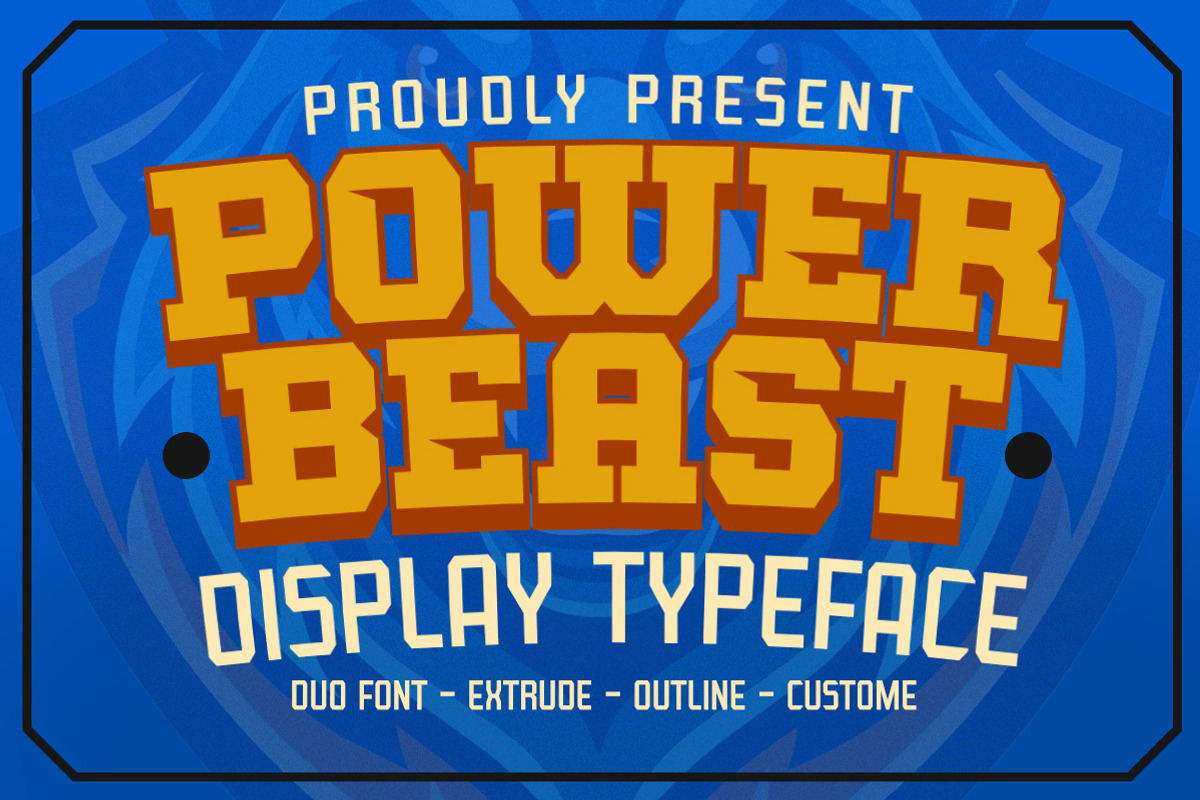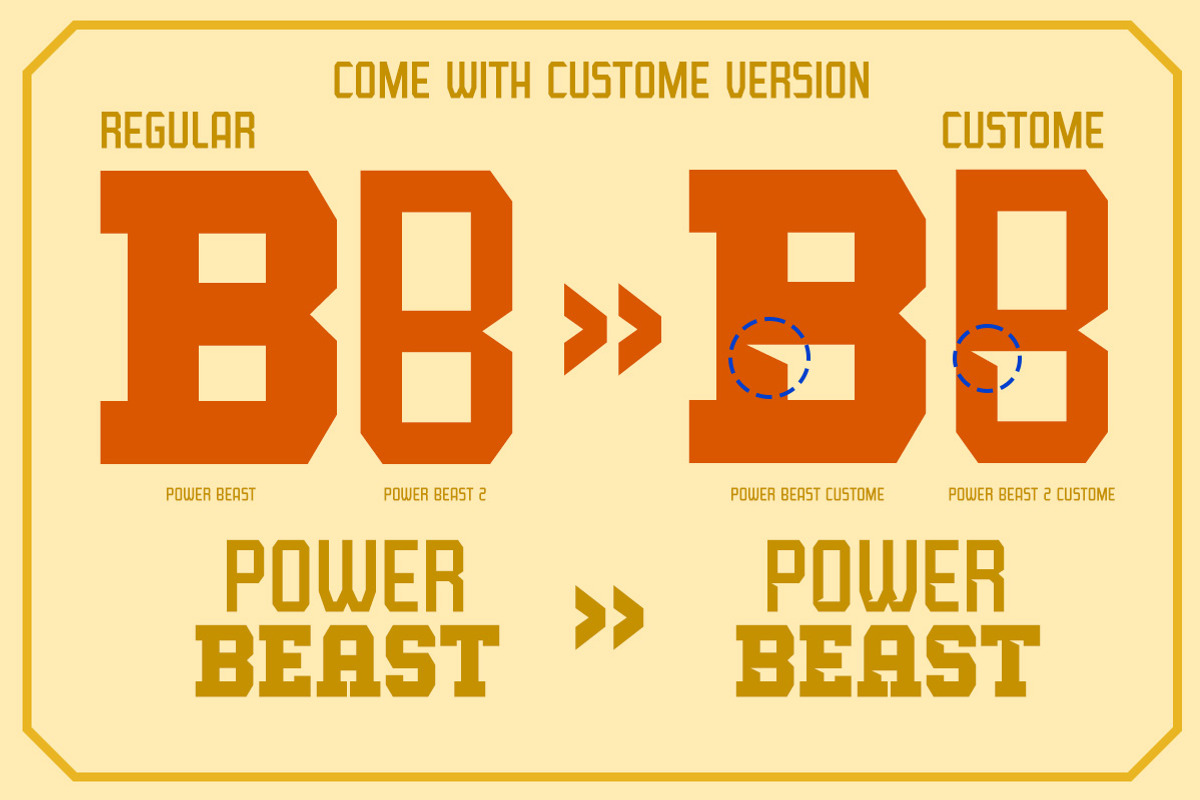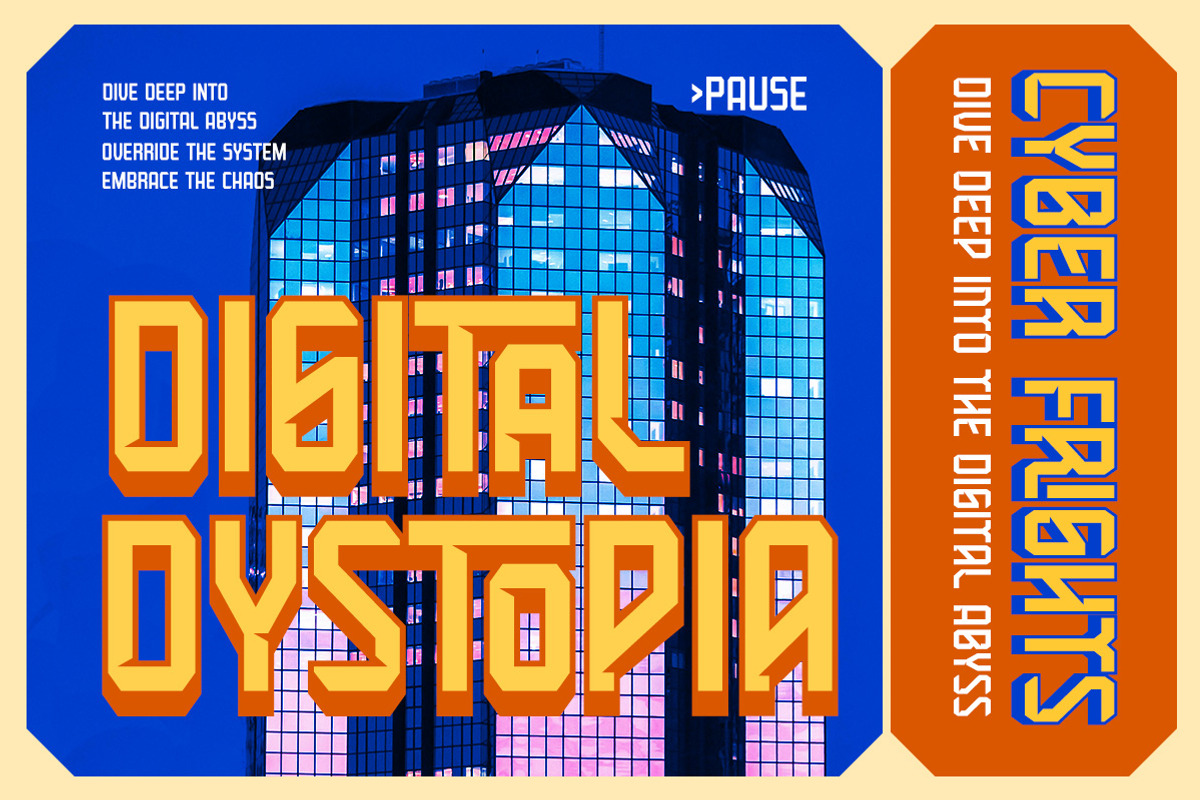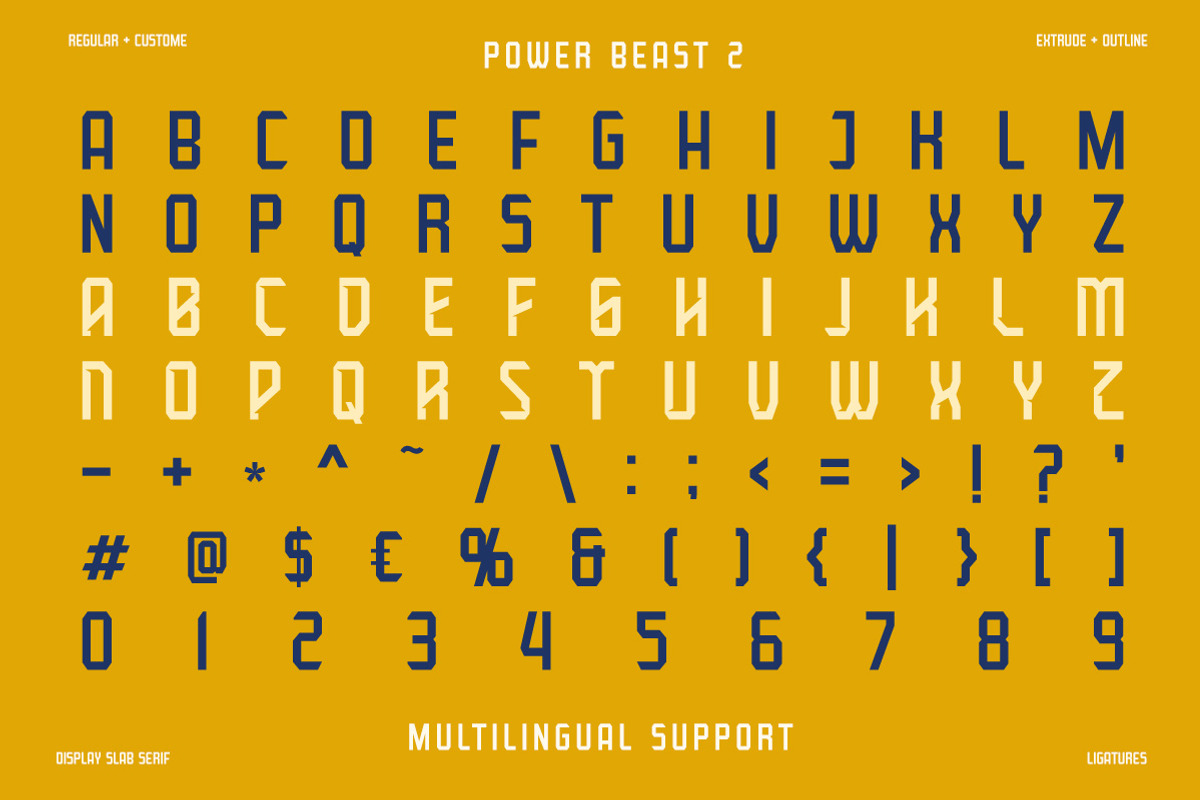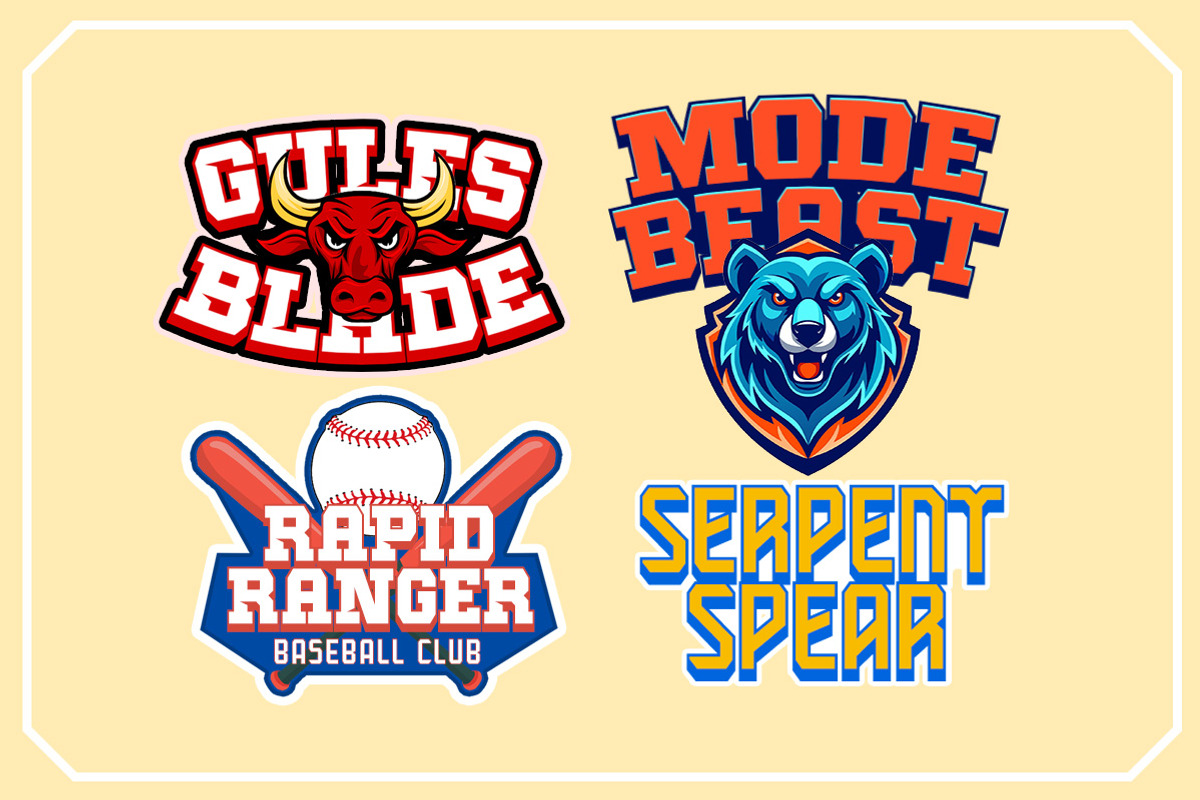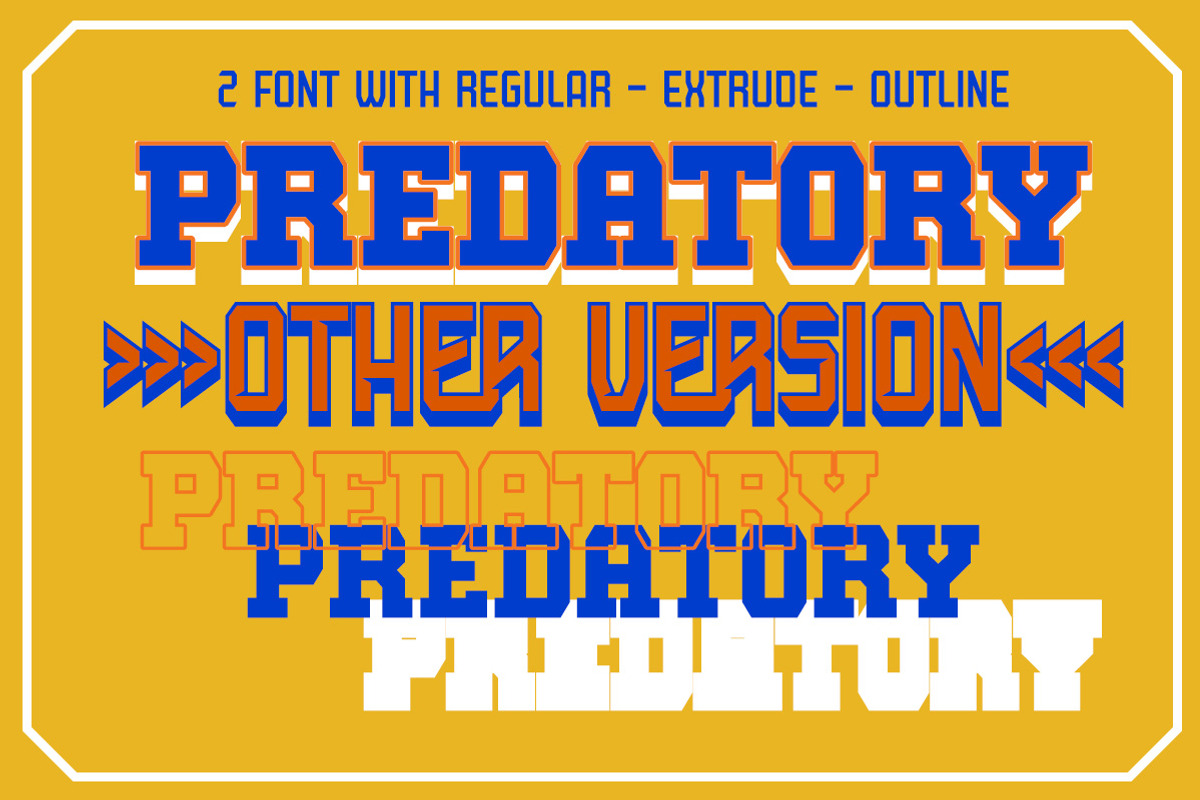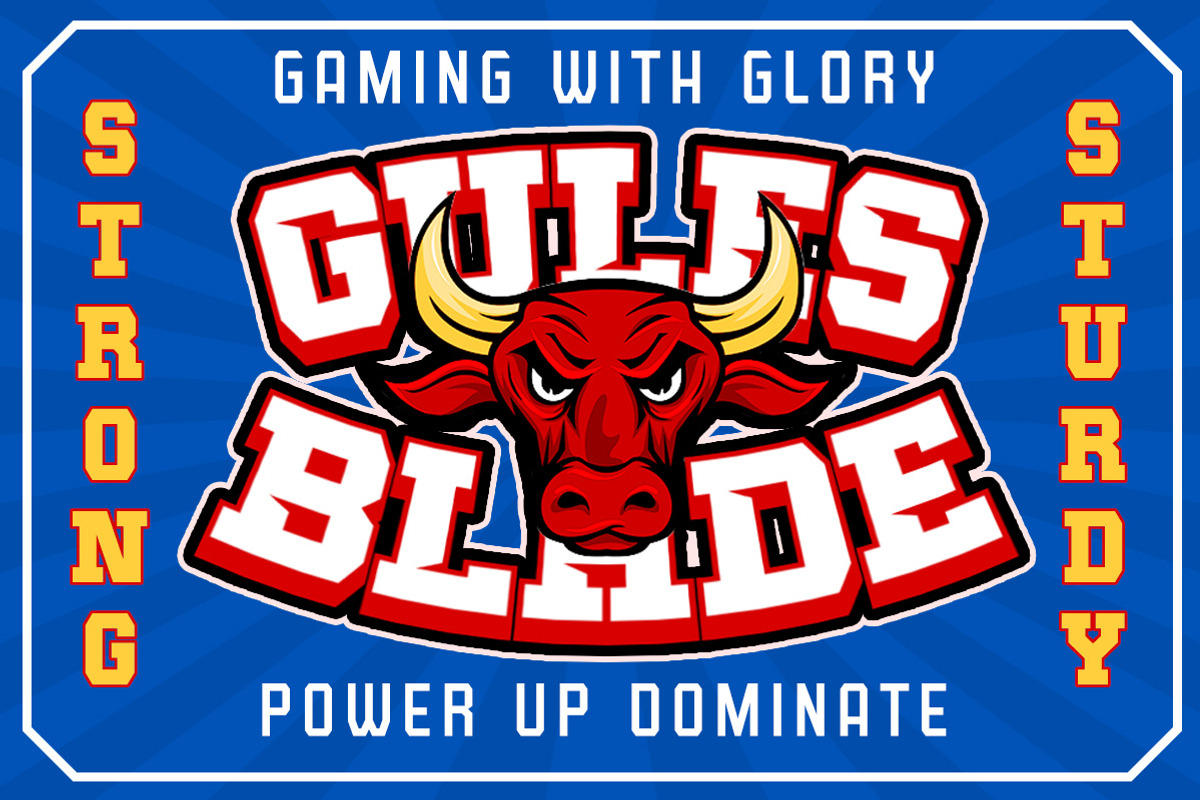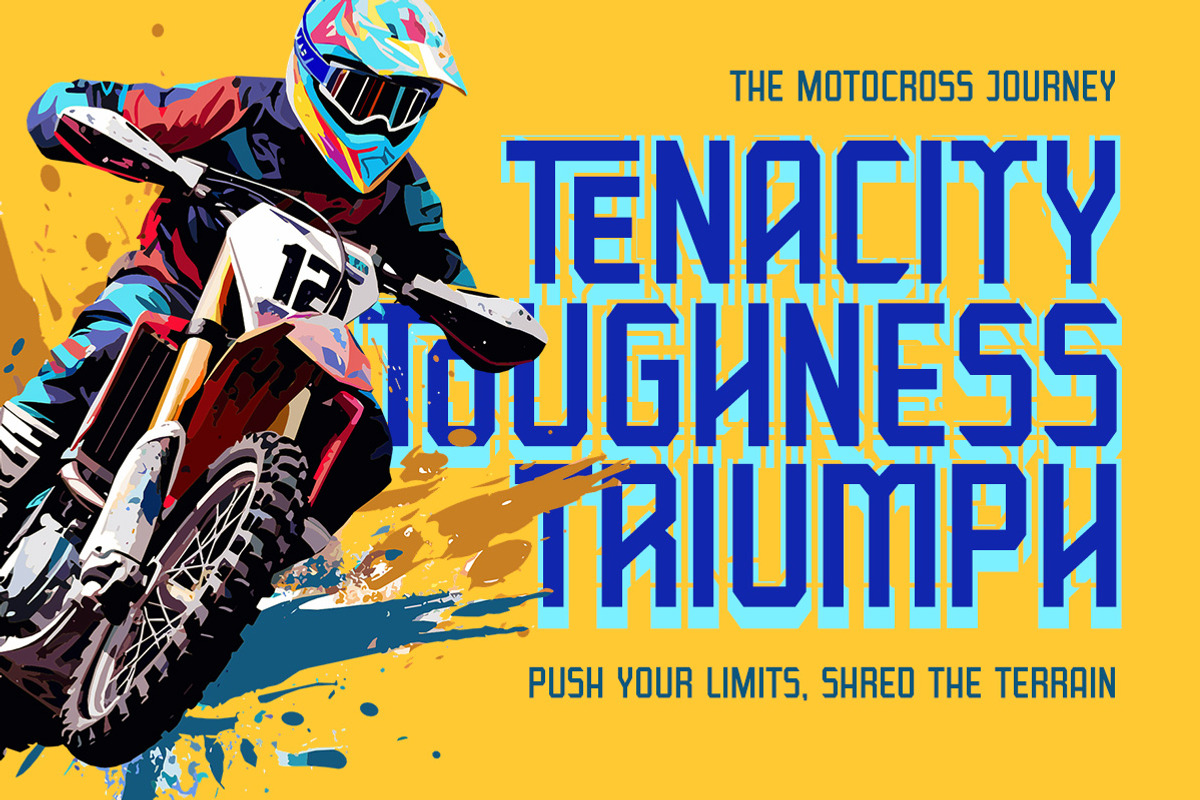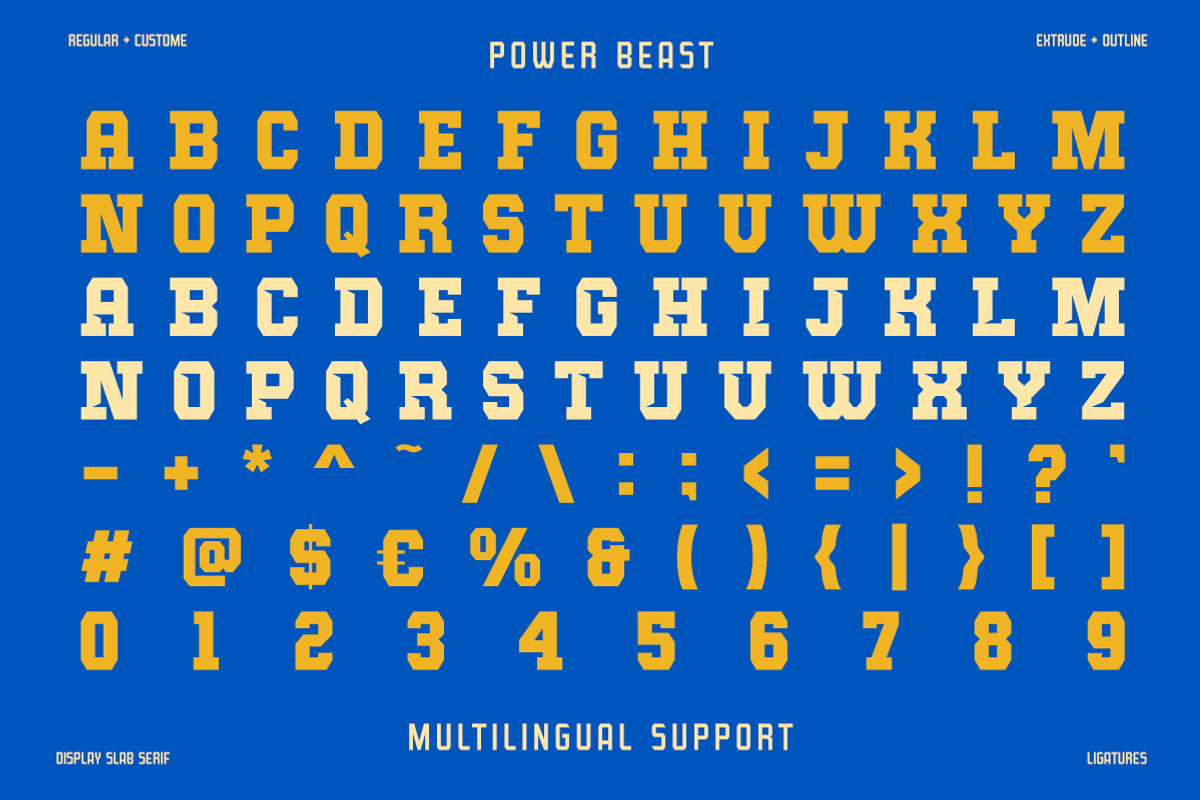
Power Beast Display Font
Introducing Power Beast : A bold and athletic slab serif typeface exuding strength and vigor. With 3 styles and 2 custom variations, it's versatile for any vibe. Ideal for logos, headlines, signage, and more. Perfect for adding a sporty touch to your designs